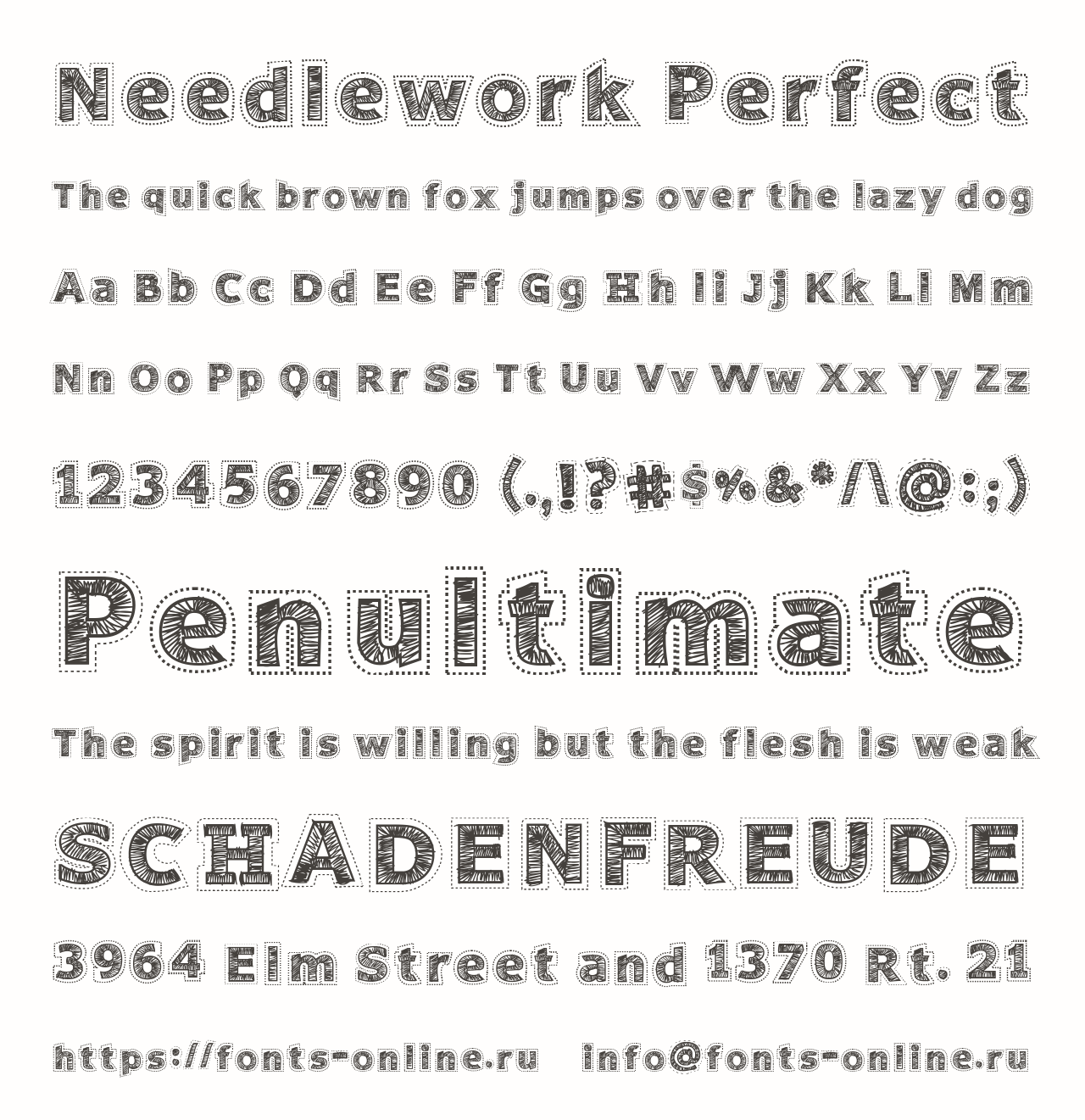
Needlework Perfect Font . Moreover, you can embed it to your website. Needlework perfect font download is available free from fontget. Needlework perfect à € par galdino otten fonts dans fantaisie > déco 85 664 téléchargements (1 hier) 2 commentaires gratuit pour un usage personnel 86,627 downloads (4 yesterday) 2 comments free for personal use. Needlework perfect is a free font for personal use created by galdino otten. Available in both ttf and otf. Needlework perfect is a boldly distinctive display font that exudes a sense of artisanal craftsmanship. Needlework perfect à € by galdino otten fonts. Needlework perfect is a font. The typeface contains 1 file and supports 37 languages. Get your very own free download of the needlework perfect font, designed and created by galdino otten fonts ltda. Download free for personal use.
Available in both ttf and otf. 86,627 downloads (4 yesterday) 2 comments free for personal use. Needlework perfect is a boldly distinctive display font that exudes a sense of artisanal craftsmanship. Get your very own free download of the needlework perfect font, designed and created by galdino otten fonts ltda. Download free for personal use. Moreover, you can embed it to your website. Needlework perfect font download is available free from fontget. Needlework perfect à € par galdino otten fonts dans fantaisie > déco 85 664 téléchargements (1 hier) 2 commentaires gratuit pour un usage personnel Needlework perfect à € by galdino otten fonts. Needlework perfect is a font.